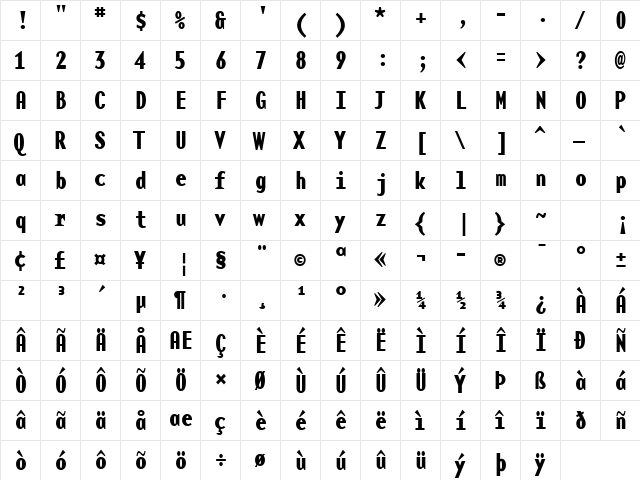
BaseMonoNarrowBold Bold Font Preview
Design Context for BaseMonoNarrowBold Typeface
BaseMonoNarrowBold brings the precise, column-aligned rhythm of monospaced typography to designs that value technical clarity and systematic order. The heavy weight commands attention and anchors typographic hierarchies.